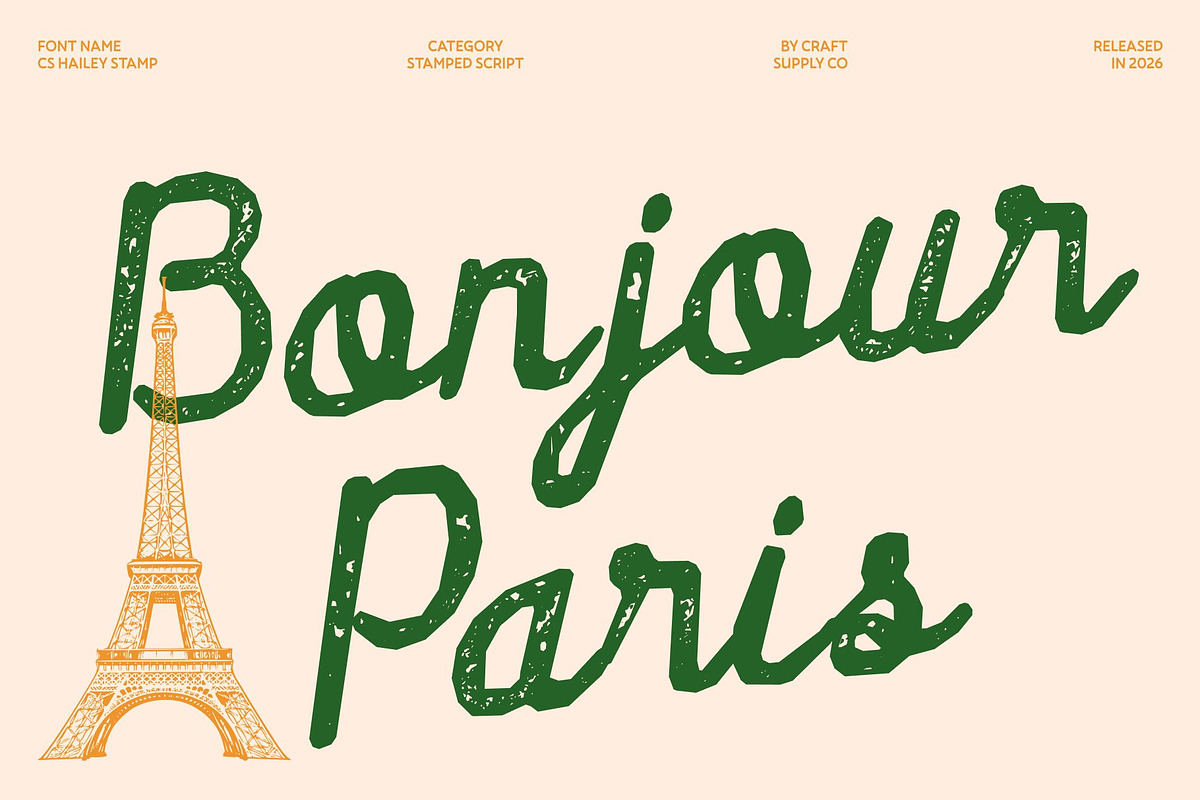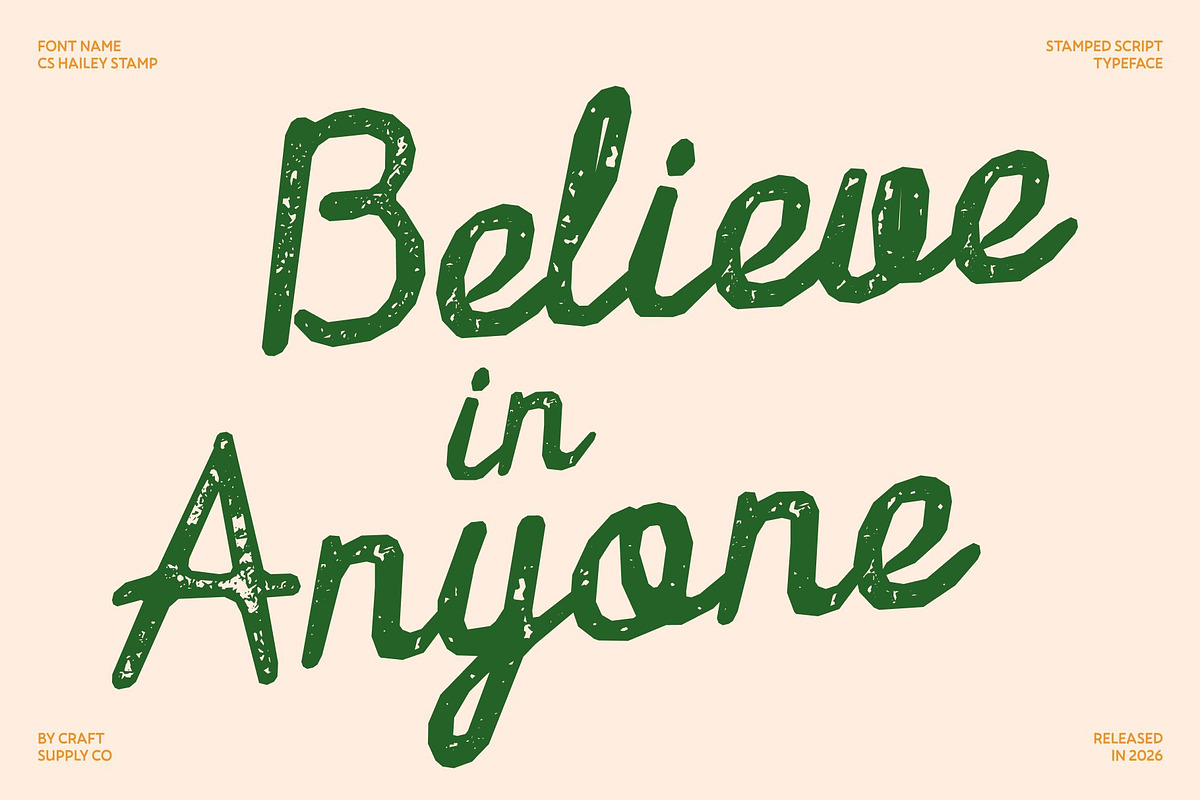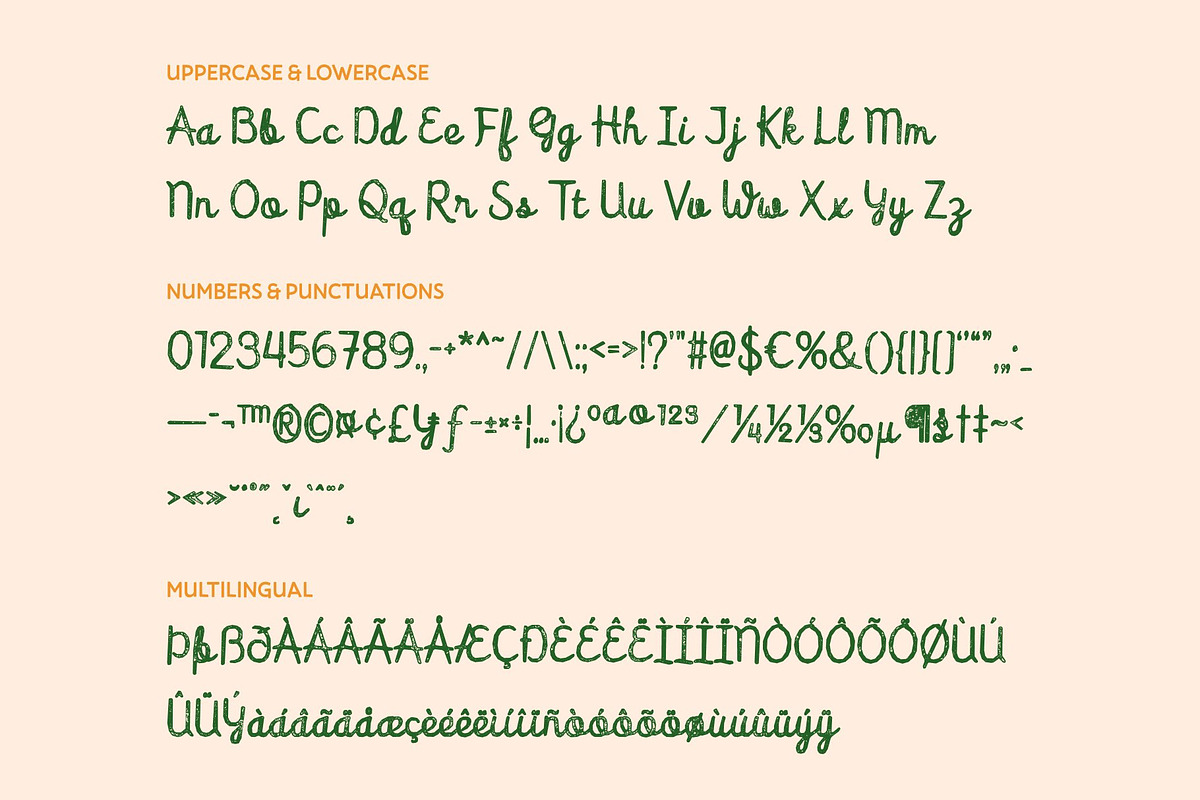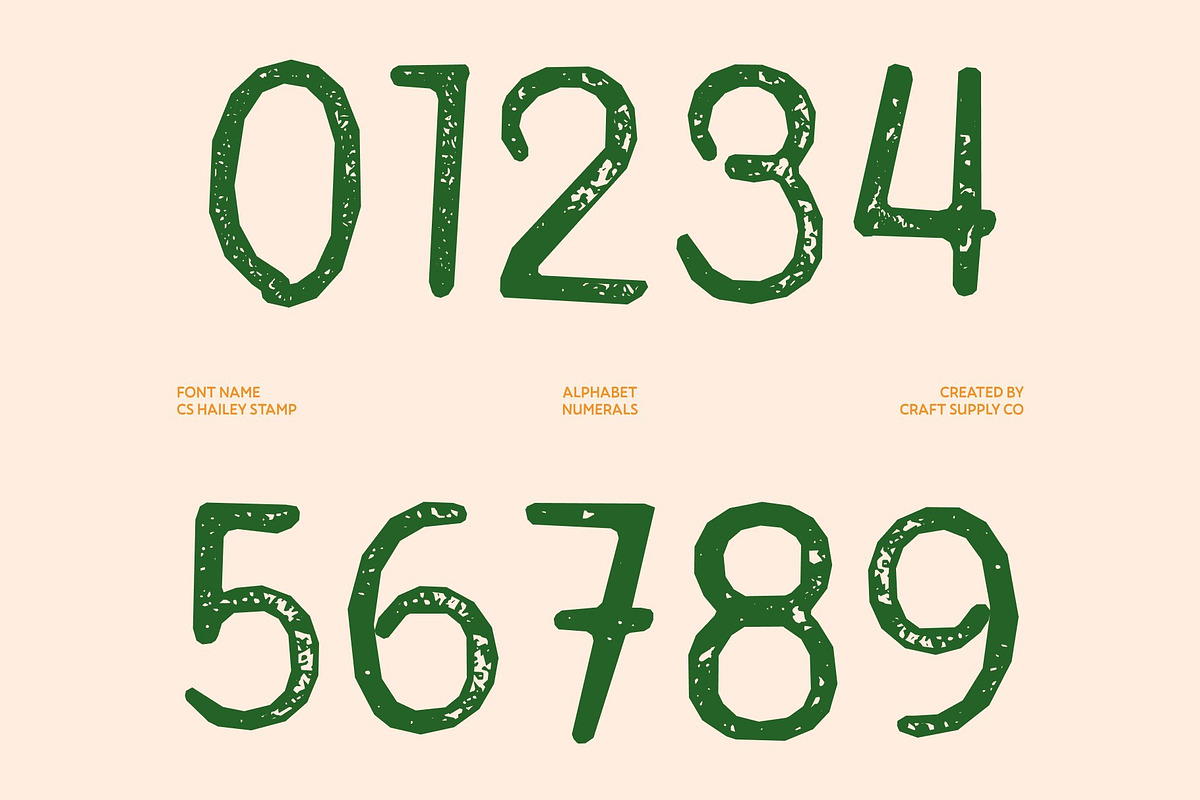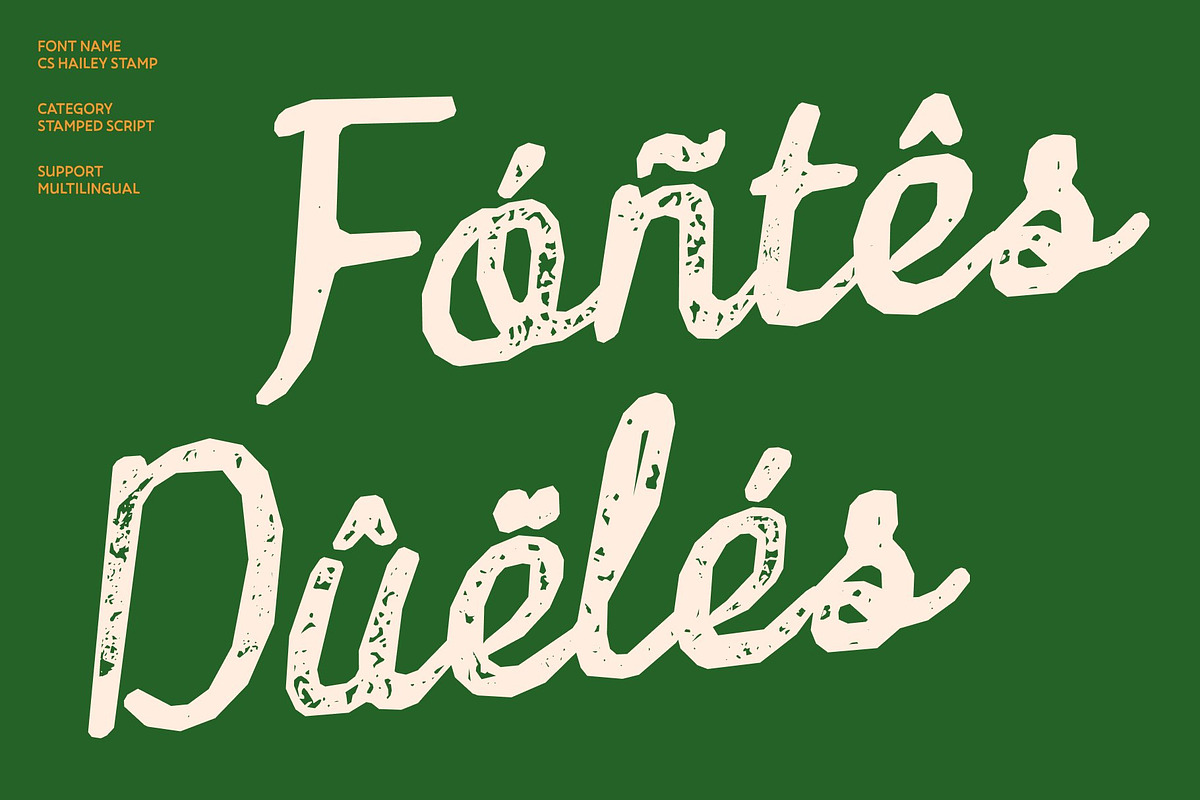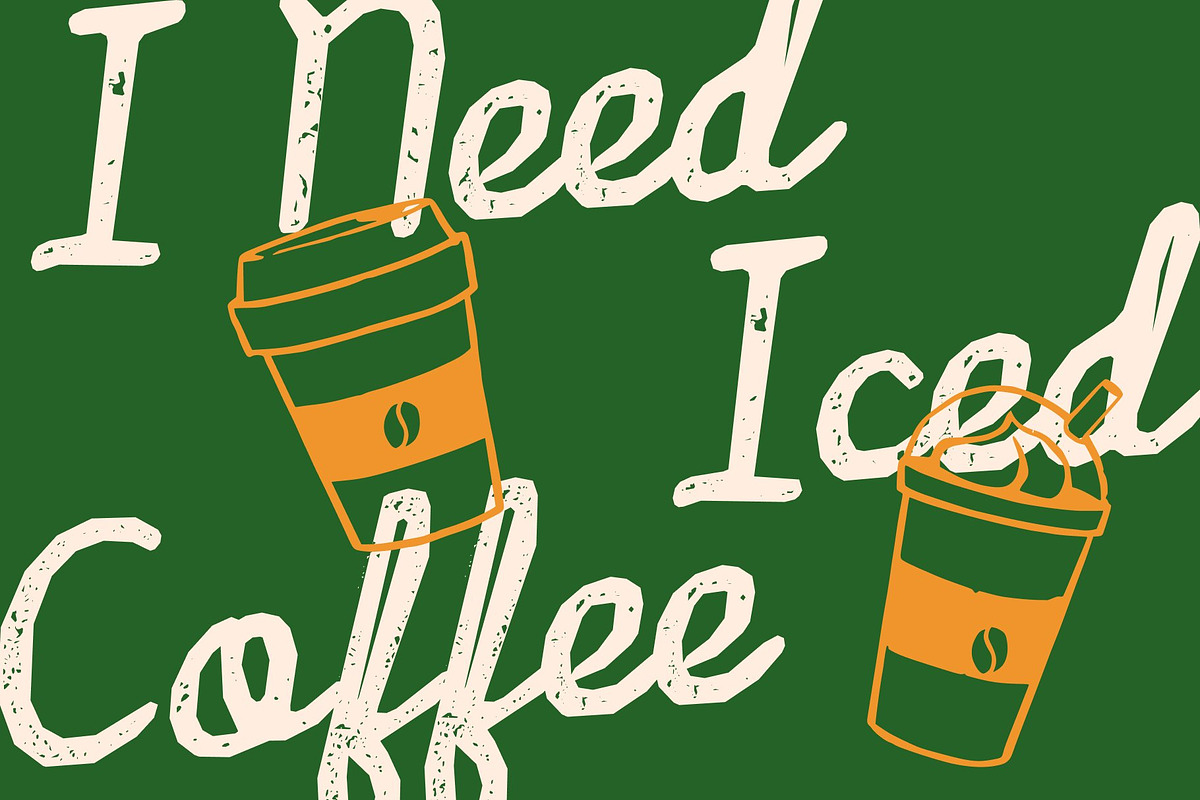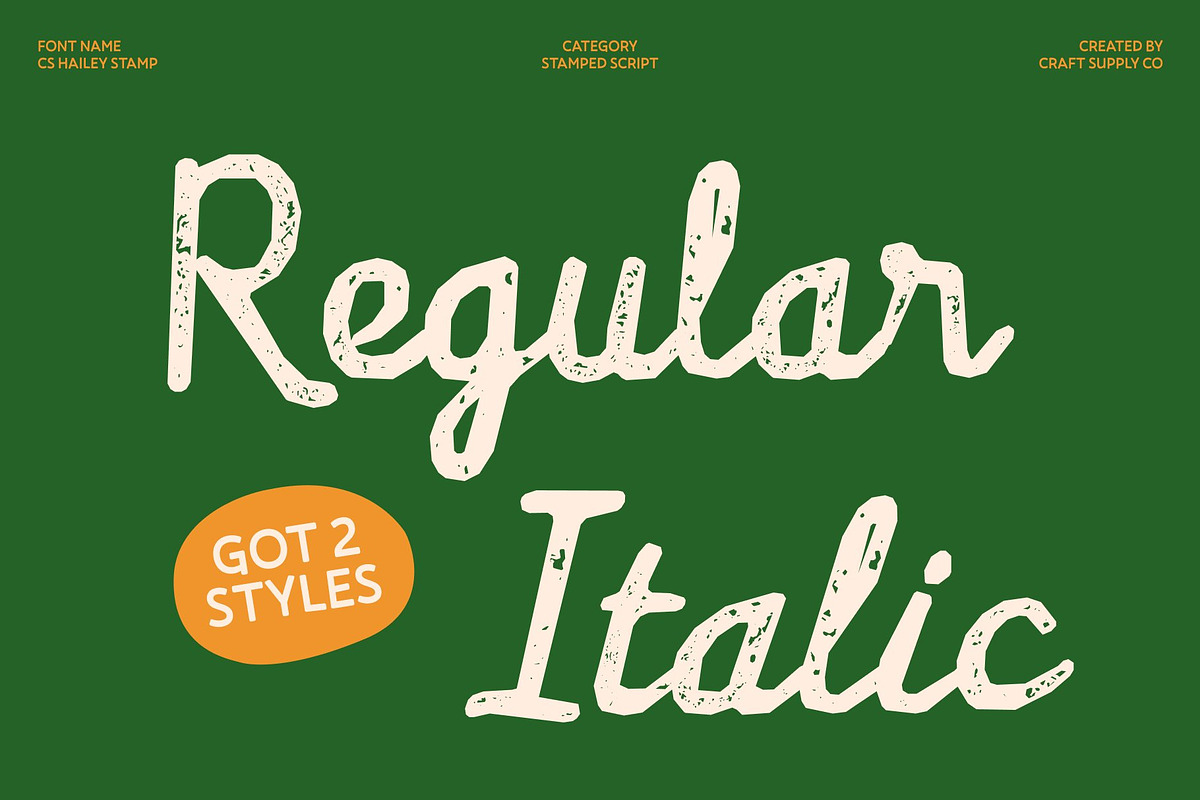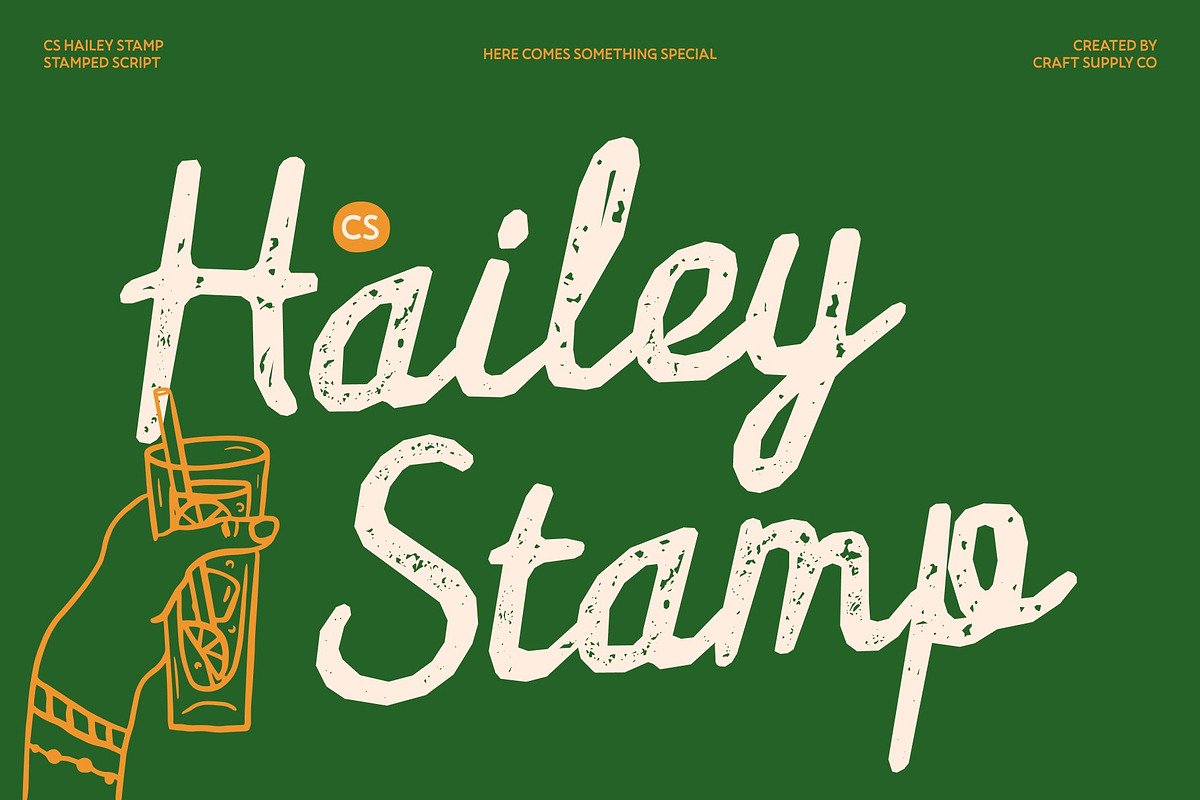
CS Hailey Stamp
CS Hailey Stamp – Script Font: Elegance with a Modern Flow
Smooth Curves with Timeless Grace This is a modern script font that captures the beauty of flowing cursive with a fresh, contemporary spirit. Its smooth, sweeping letterforms radiate luxury and warmth, while the subtle stamp texture adds a handcrafted, vintage charm that enhances every word with personality and depth.
Balanced Between Classic and Modern Designed with refined precision, this font blends classic handwritten elegance with modern typographic clarity. Each stroke is graceful and legible, while the stamped effect introduces gentle imperfections that create a more organic and authentic feel.
Perfect for Premium and Feminine Branding Ideal for wedding invitations, boutique logos, luxury product packaging, and upscale stationery, this font delivers a soft yet sophisticated presence. Its feminine elegance enhances any design that seeks to feel exclusive, emotional, and beautifully crafted.
Versatile for Elegant Applications From editorial layouts to personal branding, this font adapts effortlessly across creative uses. It works as a refined focal point in headlines or as a delicate complement in minimalist compositions, making it a versatile choice for timeless design work.
CS Hailey Stamp Regular
CS Hailey Stamp Italic